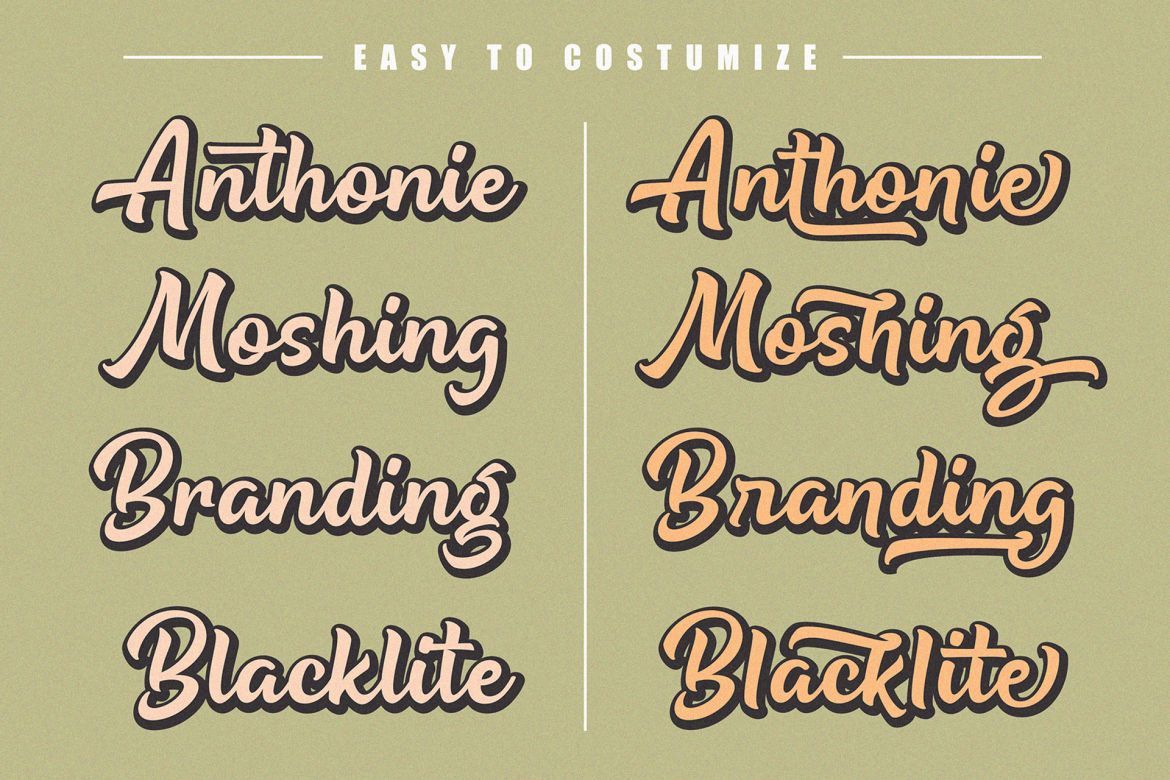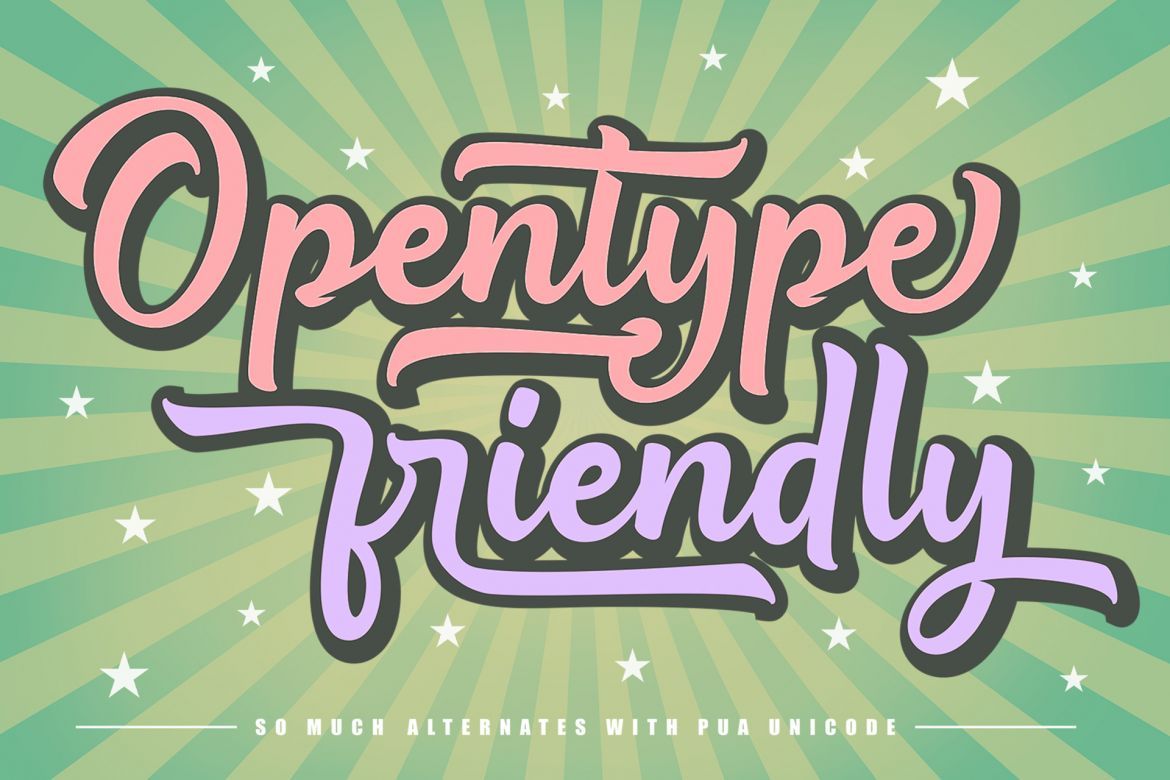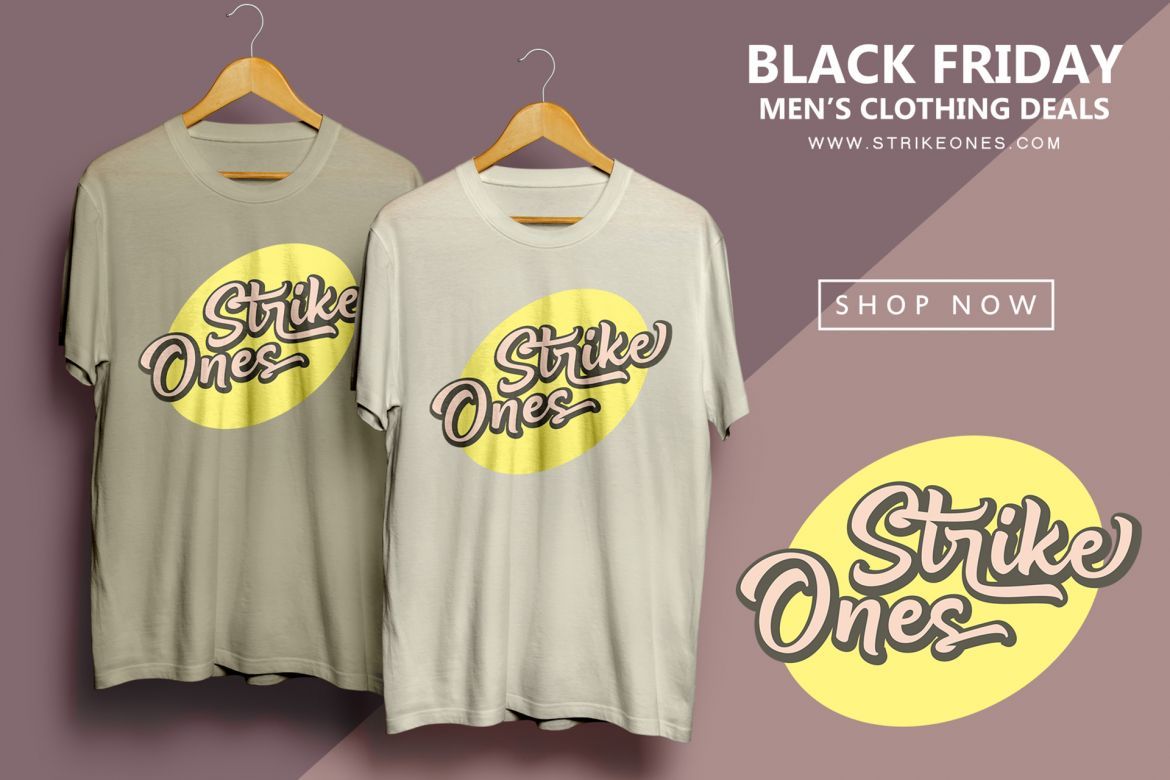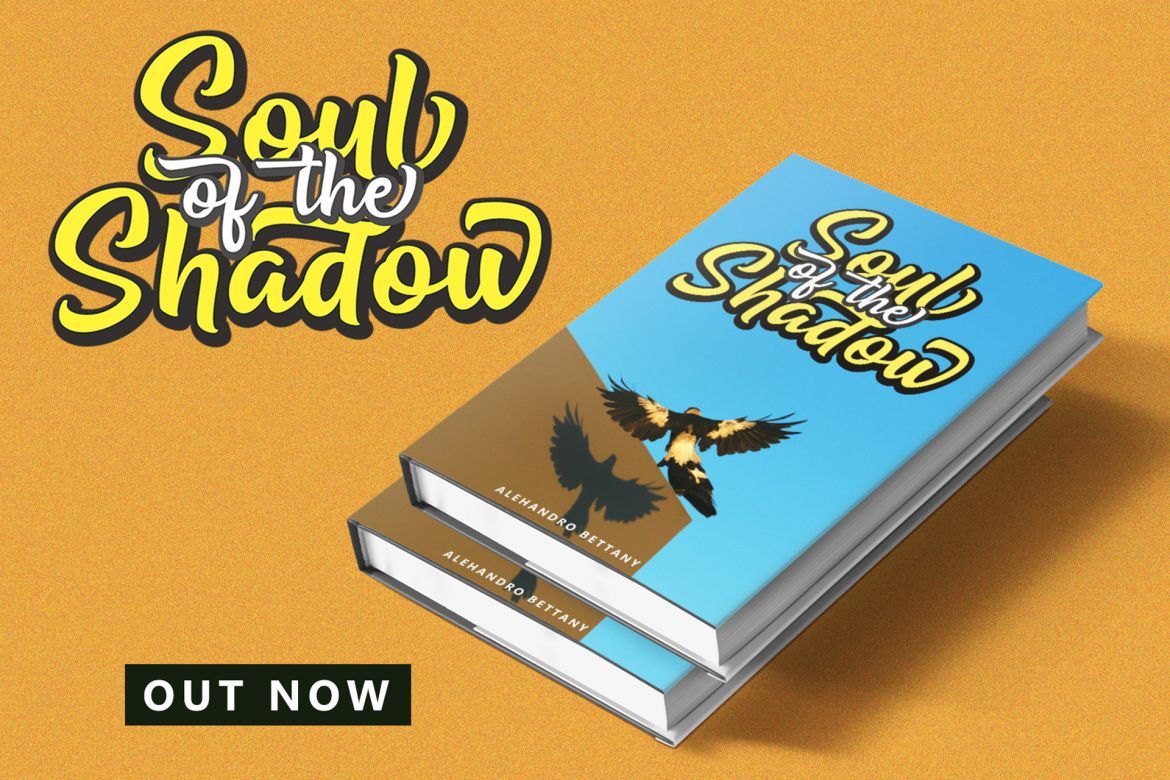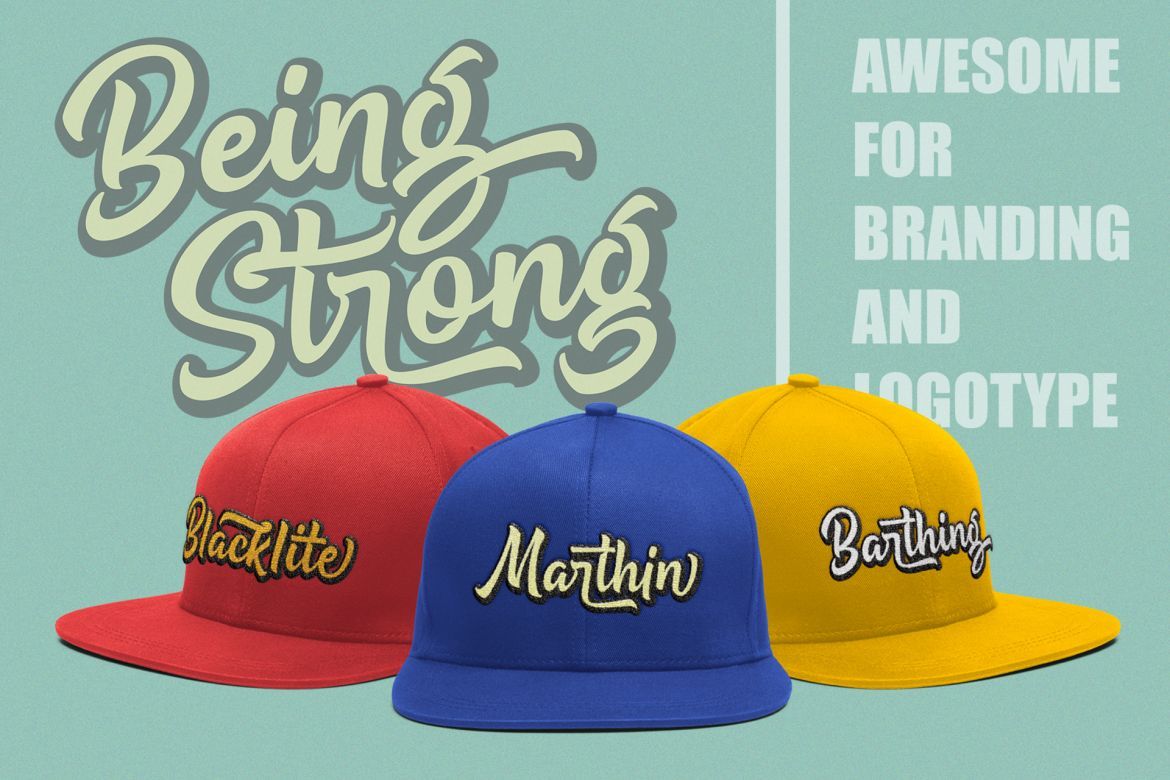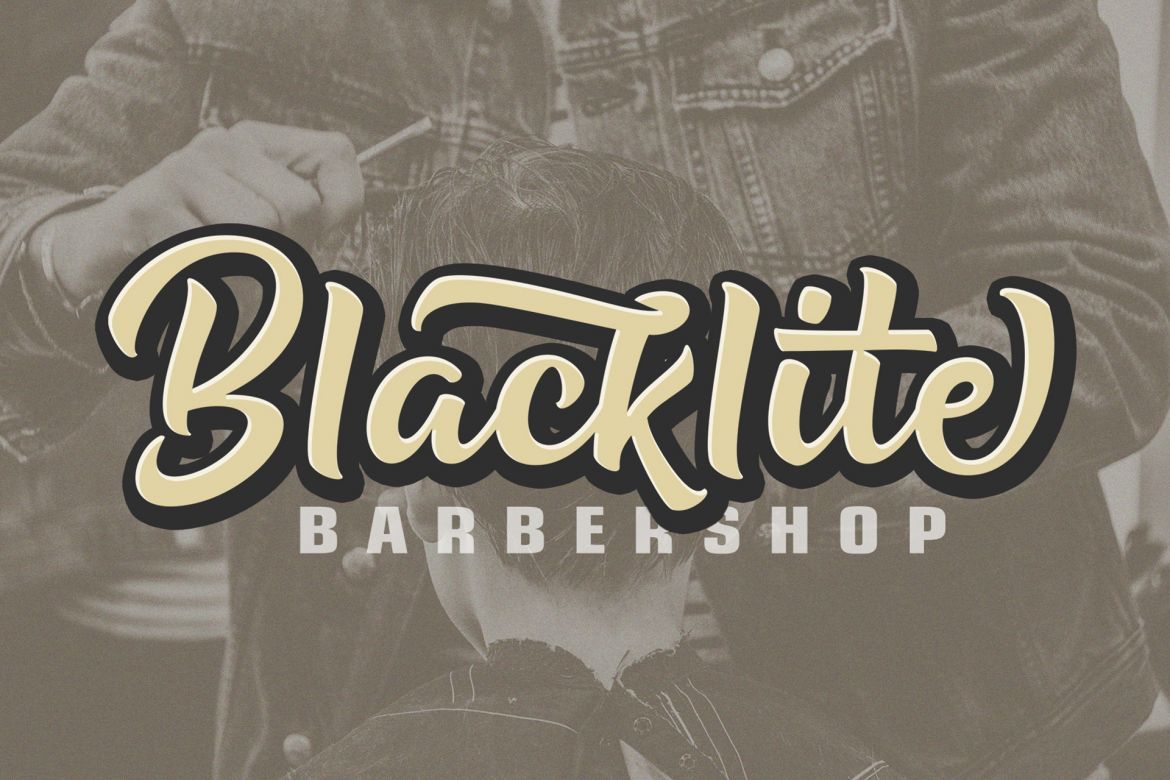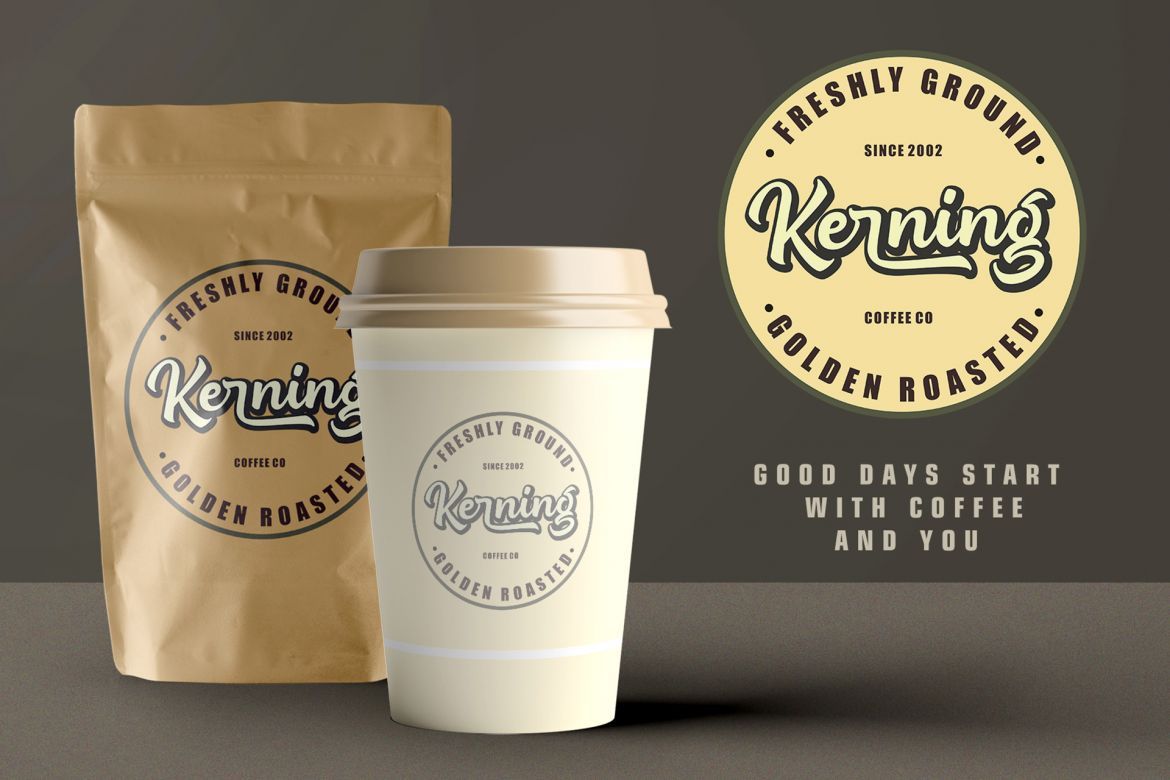
Being Strong Extrude Font
Introducing a new Layered bold script called Being Strong .Being Strong inspired by handlettering, bold script logotype and retro style. Being Strong came with open type features and multilingual accent good for logotype, poster, badge, book cover, tshirt design, packaging and any more.
• extrude shadow
• opentype features